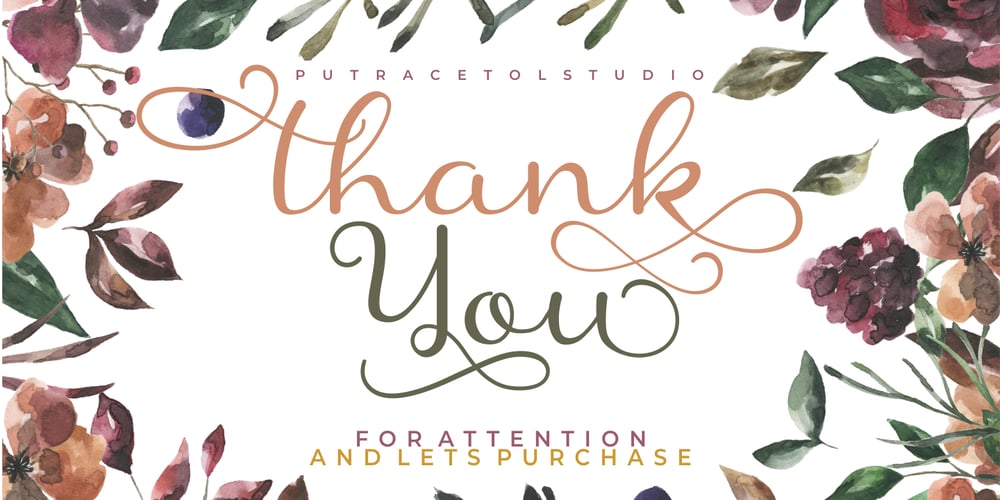
Shanela Font Family was designed by Putra Novembria Candra Kusuma and published by Putracetol. Shanela contains 1 styles and family package options. Introducing a new romantic and modern script font called “Shanela”, a lovely and sweet swirly letter font. Comes with open type features with a lot of alternates and end swashes to help you to make great lettering. Shanela is best used for headings, wedding events, birthday, greeting cards, logotype, branding, elegant logos, posters, packaging, stationery, website, covers, quotes, merchandise, social media, any project requiring a handwriting, and many more.